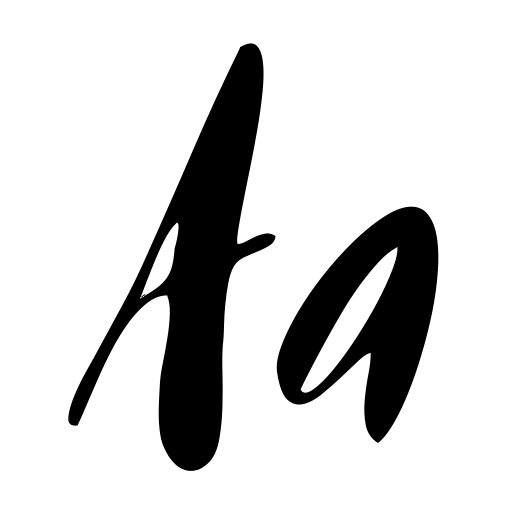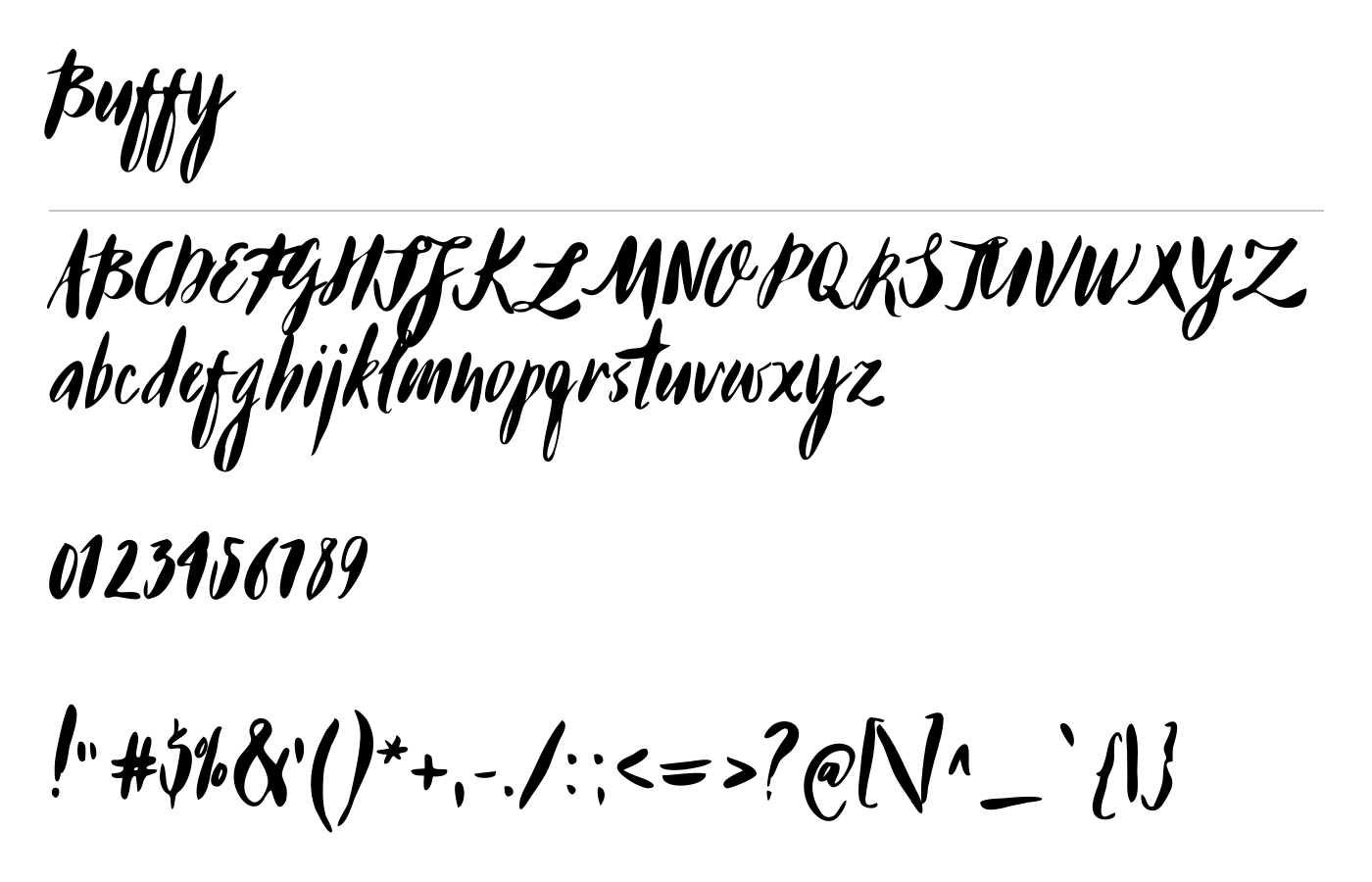
Buffy is an expressive brush script font with a lively, hand-painted feel that brings energy and personality to any design. Its bold, flowing strokes and slightly condensed letterforms make it ideal for eye-catching headlines, branding, and creative projects that want to convey a sense of spontaneity and artistic flair. Perfect for invitations, posters, and lifestyle brands, Buffy adds a warm, informal touch while maintaining readability and style.
Buffy Font